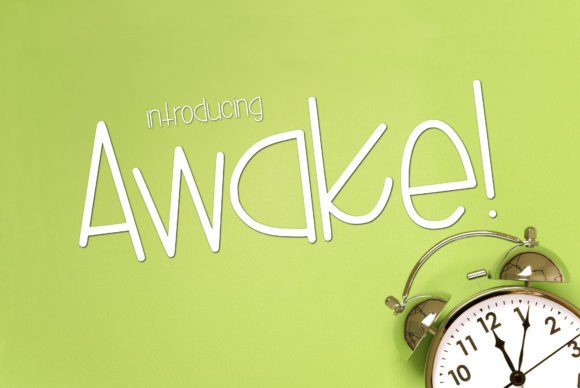
Introducing Awake Font: The Playful Spark Your Designs Need
Have you ever been working on a project, pouring your heart and soul into it, but something just feels off? You’re trying to convey a lighthearted and fun vibe, but the font you’re using is just not cutting it. I know the feeling! I was once tasked with creating a whimsical invitation for a friend’s birthday party, and no matter how hard I tried, I just couldn’t find the right font to match the playful tone of the event. That was until I stumbled upon Awake Font.
The Birth of Awake Font
Awake Font was designed with one goal in mind: to bring a touch of playfulness and joy to your designs. Its creator, a talented typographer, wanted to craft a font that would stand out from the crowd and add a dash of whimsy to any project. And, boy, did they succeed! With its tall and quirky letters, Awake Font is the perfect addition to any design that needs a little extra character.
My Honest Review of Awake Font
So, what do I love about Awake Font? Here are a few things that make it a standout:
- ✨ Unique and quirky letterforms that add a touch of personality to any design
- 💫 Works beautifully for both digital and print projects
- 🎉 Extensive character set, including support for multiple languages
Of course, no font is perfect, and Awake Font has a few small quirks:
- 🤔 Some users may find the font a bit too playful for very formal or professional projects
Awake Font was inspired by the typographer’s love of whimsical and playful design. Growing up, they were always fascinated by the way fonts could evoke emotions and add personality to a design. With Awake Font, they wanted to create a font that would bring a smile to people’s faces and add a touch of joy to their designs.
| Q: What type of projects is Awake Font best suited for? | A: Awake Font is perfect for fun, modern projects that need a little extra character, such as invitations, posters, and social media graphics. |
In conclusion, Awake Font is a charmingly quirky font that’s perfect for designers, crafters, and creative hobbyists who want to add a touch of playfulness and joy to their designs. With its unique letterforms, extensive character set, and OpenType features, Awake Font is sure to brighten up any project and bring a smile to people’s faces.